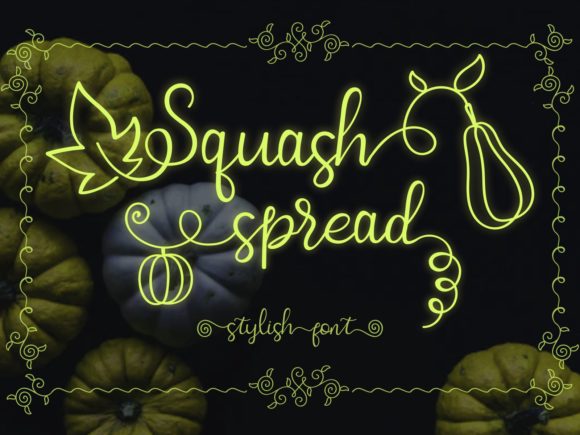
Step into the world of elegance and refinement with Squash Spread Font, a script font family that exudes modern charm and sophistication. Inspired by the timeless beauty of handwritten calligraphy, this font is a visual masterpiece that will elevate your designs to new heights. Immerse yourself in the world of Squash Spread Font and discover a font that's perfect for adding a touch of sophistication and artistry to your creative projects.
Squash Spread Font is the epitome of versatility, effortlessly adapting to a wide range of design aesthetics. Whether you're crafting wedding invitations, heartfelt thank you cards, inspiring quotes, or eye-catching greeting cards, this font will seamlessly elevate your words with its timeless appeal. Unleash your creativity and let Squash Spread Font add a touch of elegance to your logos and business cards, transforming them into captivating brand identities.
With its PUA encoding, Squash Spread Font opens up a world of possibilities, granting you effortless access to a vast repertoire of glyphs and swashes. This user-friendly feature ensures that you can effortlessly incorporate intricate embellishments and flourishes into your designs, adding an extra layer of artistry and detail.
Whether you're a seasoned designer or just starting your creative journey, Squash Spread Font is the perfect companion for adding a touch of magic to your projects. Its versatility and charm will captivate your audience, leaving them spellbound by the beauty of your designs. Embrace the elegance of Squash Spread Font and watch as your creative visions come to life, leaving an unforgettable impression on all who behold them.